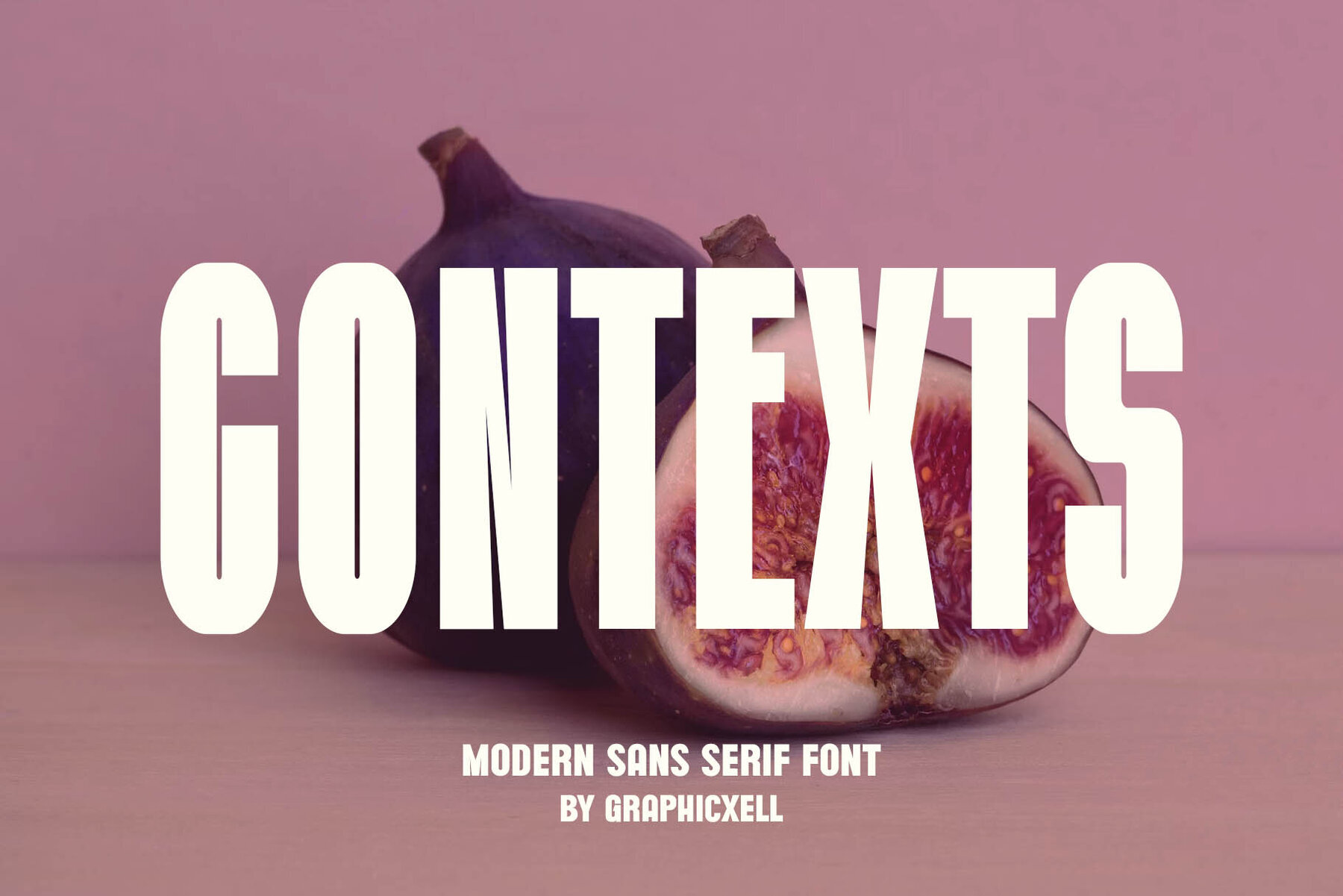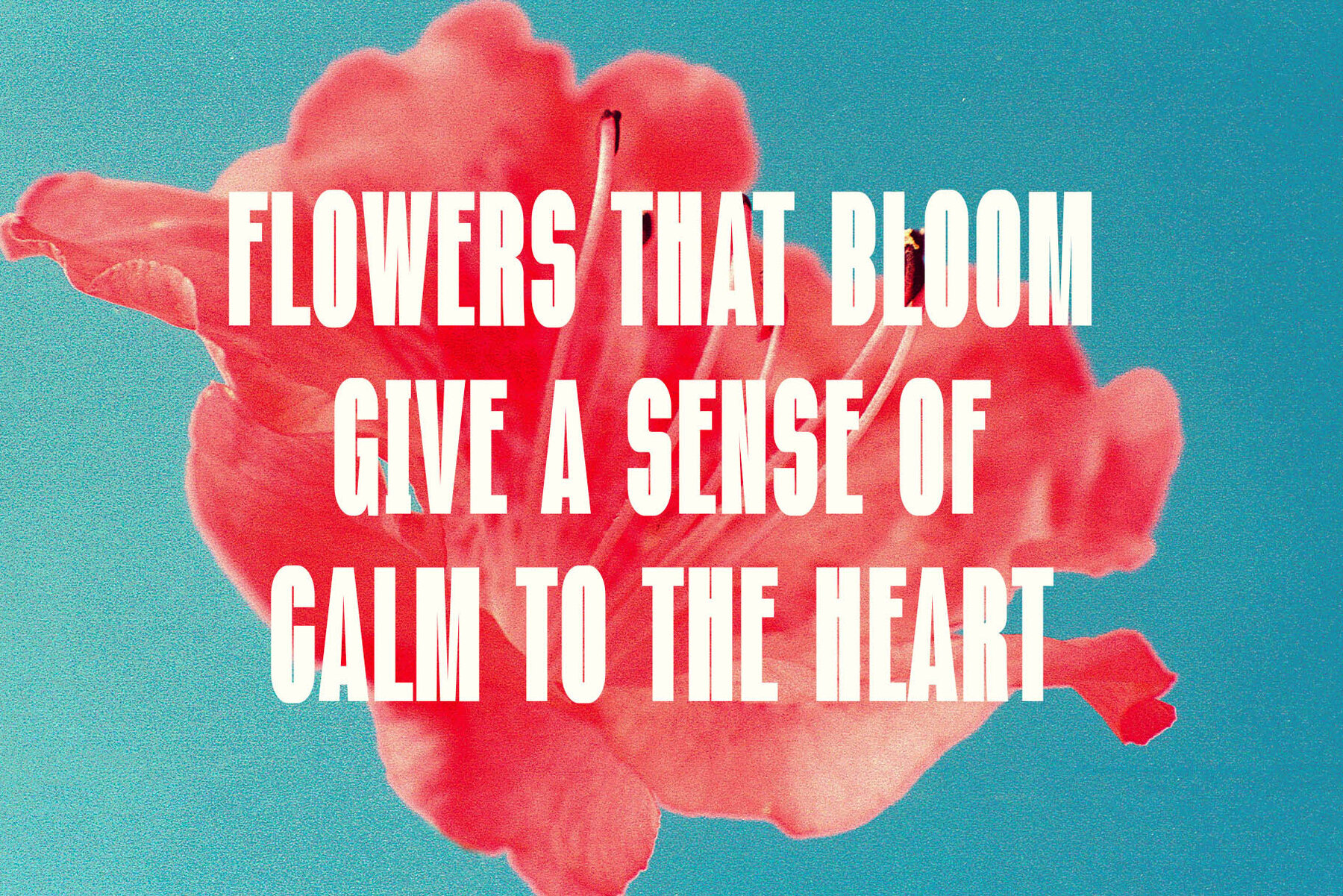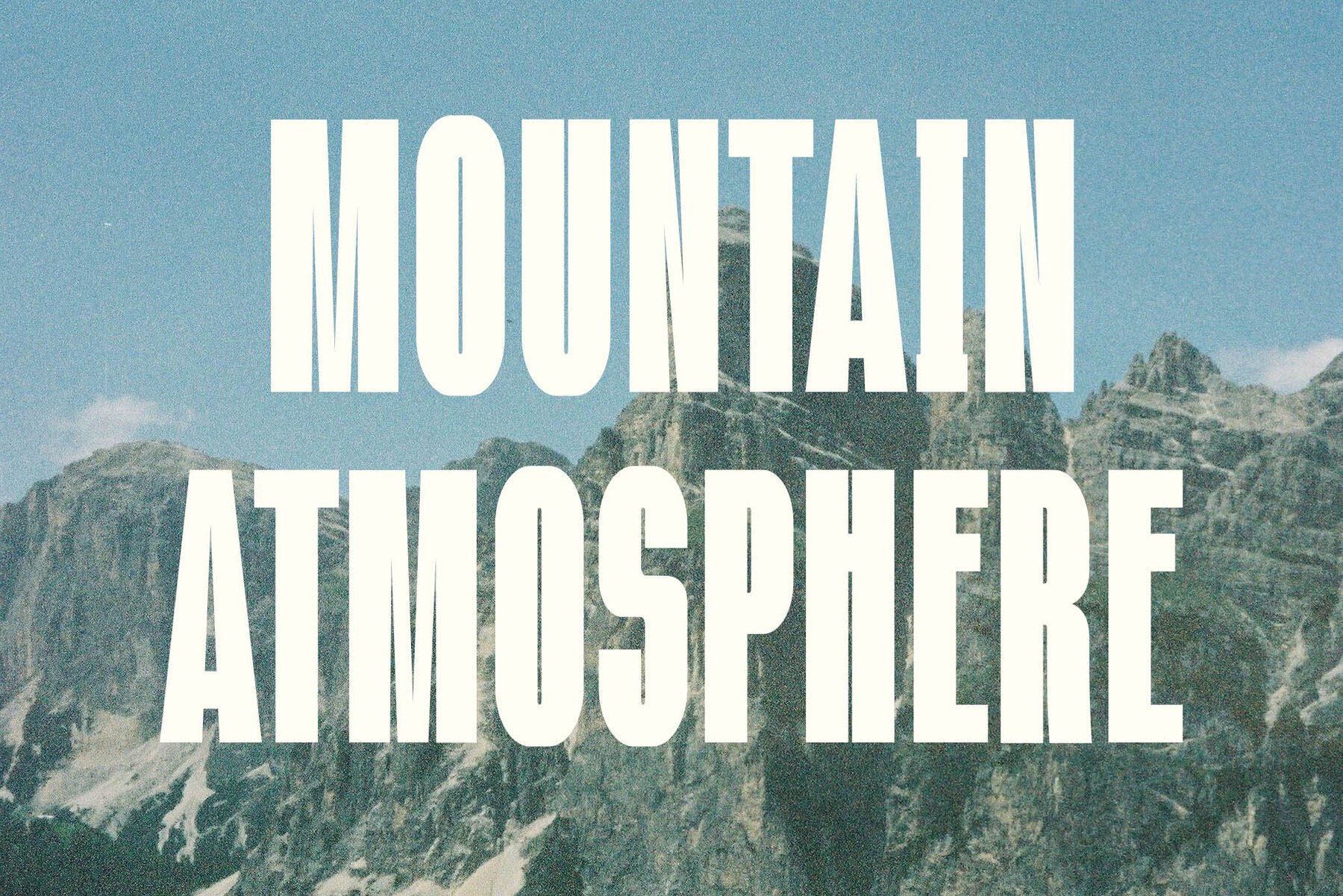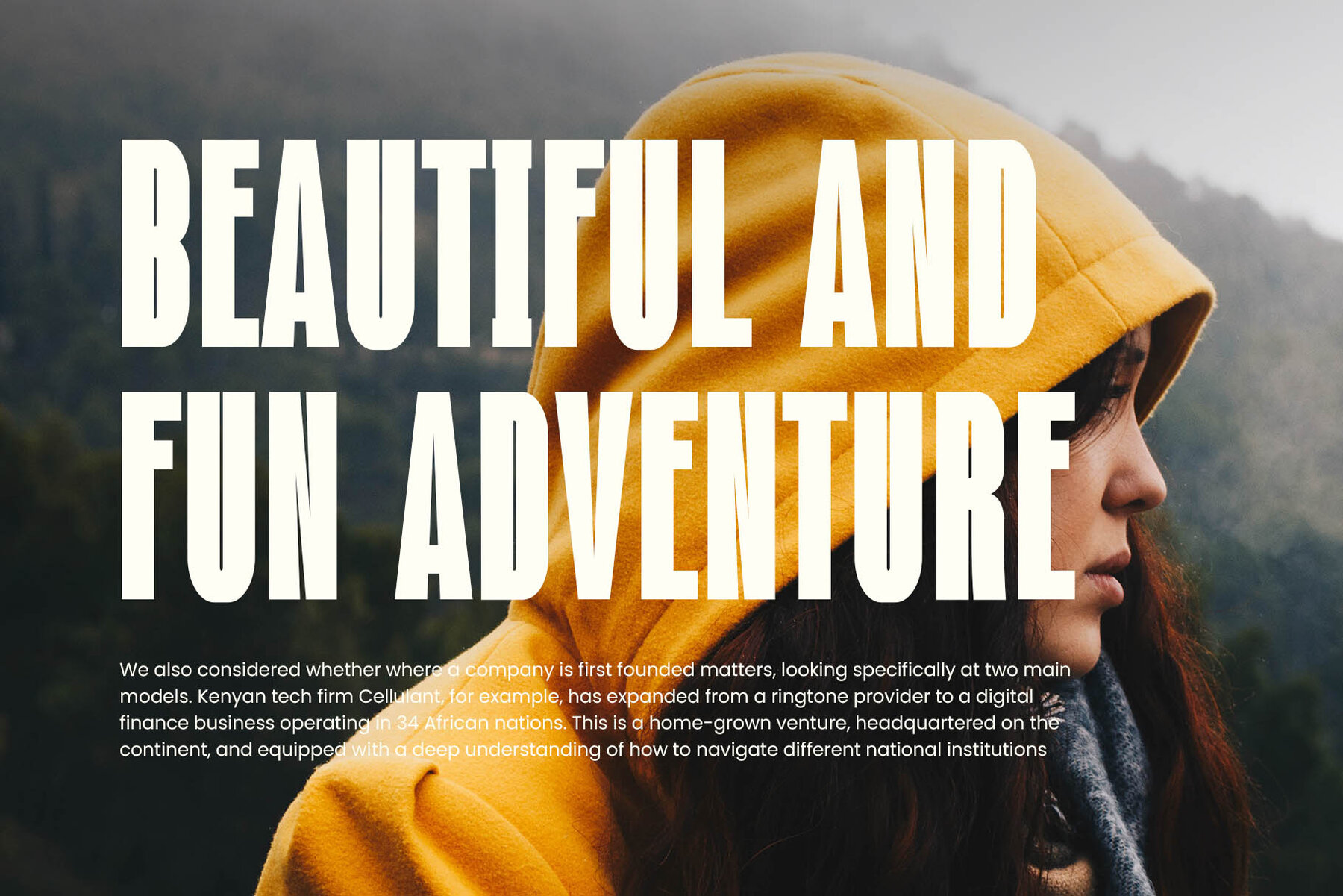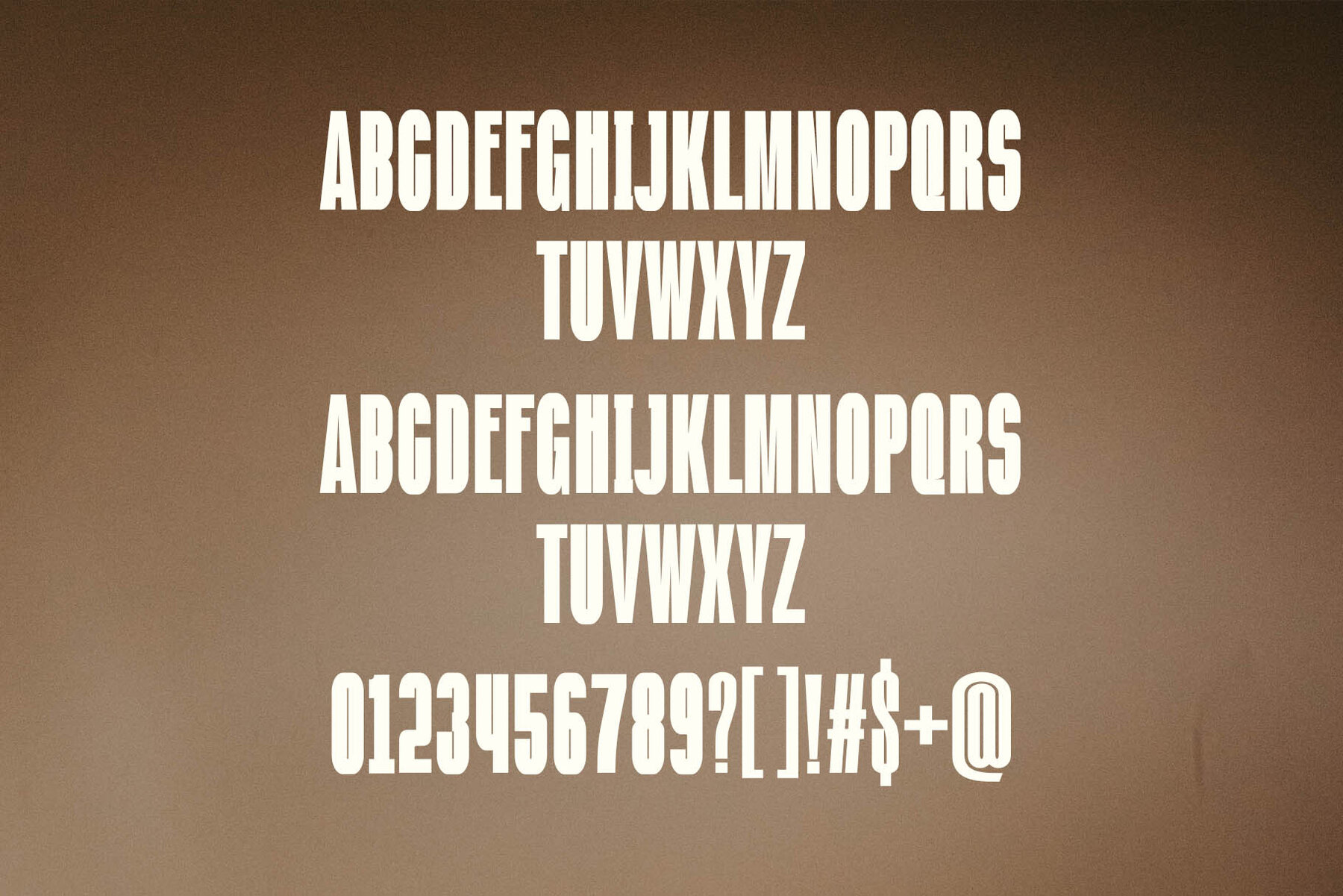
Contexts Font
Contexts
Introducing Contexts by Graphicxell, a font inspired by renowned minimalist logos. It is ideal for crafting a variety of creative designs, from templates and brochures to videos and advertising. Perfect for branding projects, logos, invitations, and elegant layout designs.Contexts by Graphicxell: Minimalist Logo Inspiration